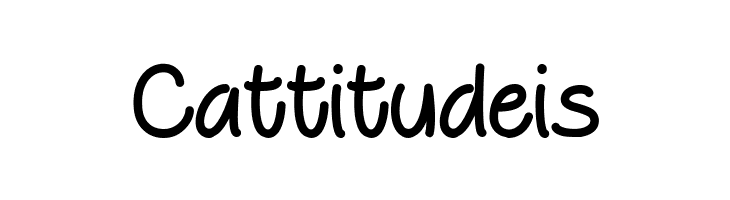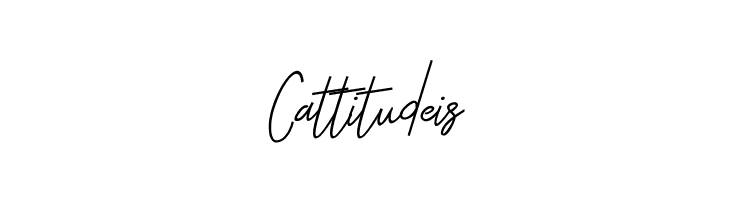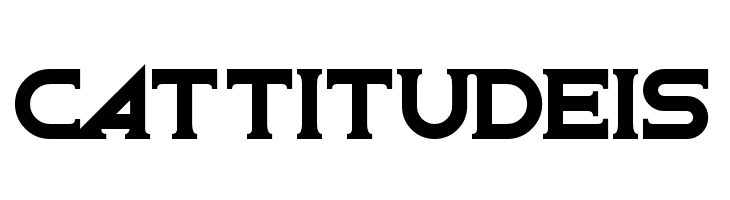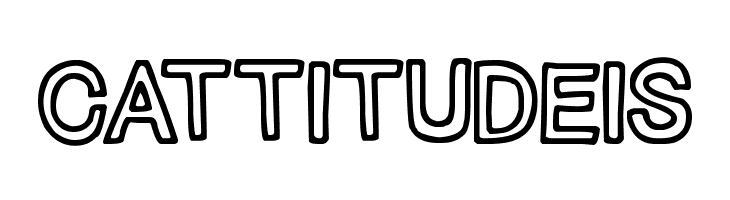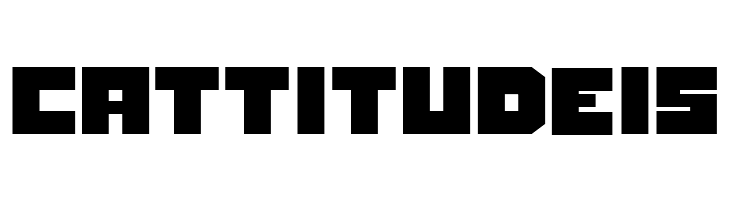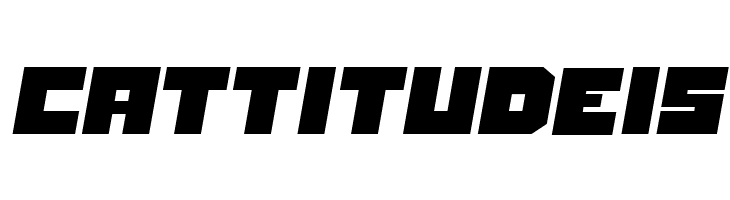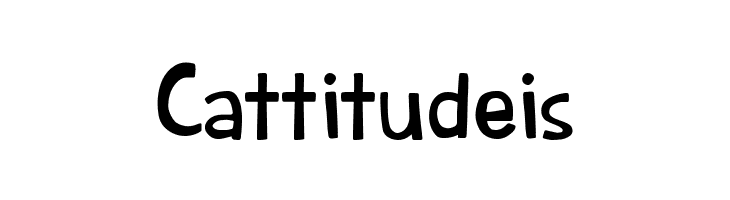
A playful, bold font with rounded, slightly irregular characters.
A dynamic, expressive handwritten font with elongated, fluid strokes.
A playful, rounded font with a hand-drawn, whimsical style.
A bold, outlined font with consistent thickness and rounded edges for a striking visual impact.
A bold, italicized font with angular, dynamic characters.
A bold, geometric font with a strong, angular design.
A bold, angular font with sharp edges and a dynamic, modern style.